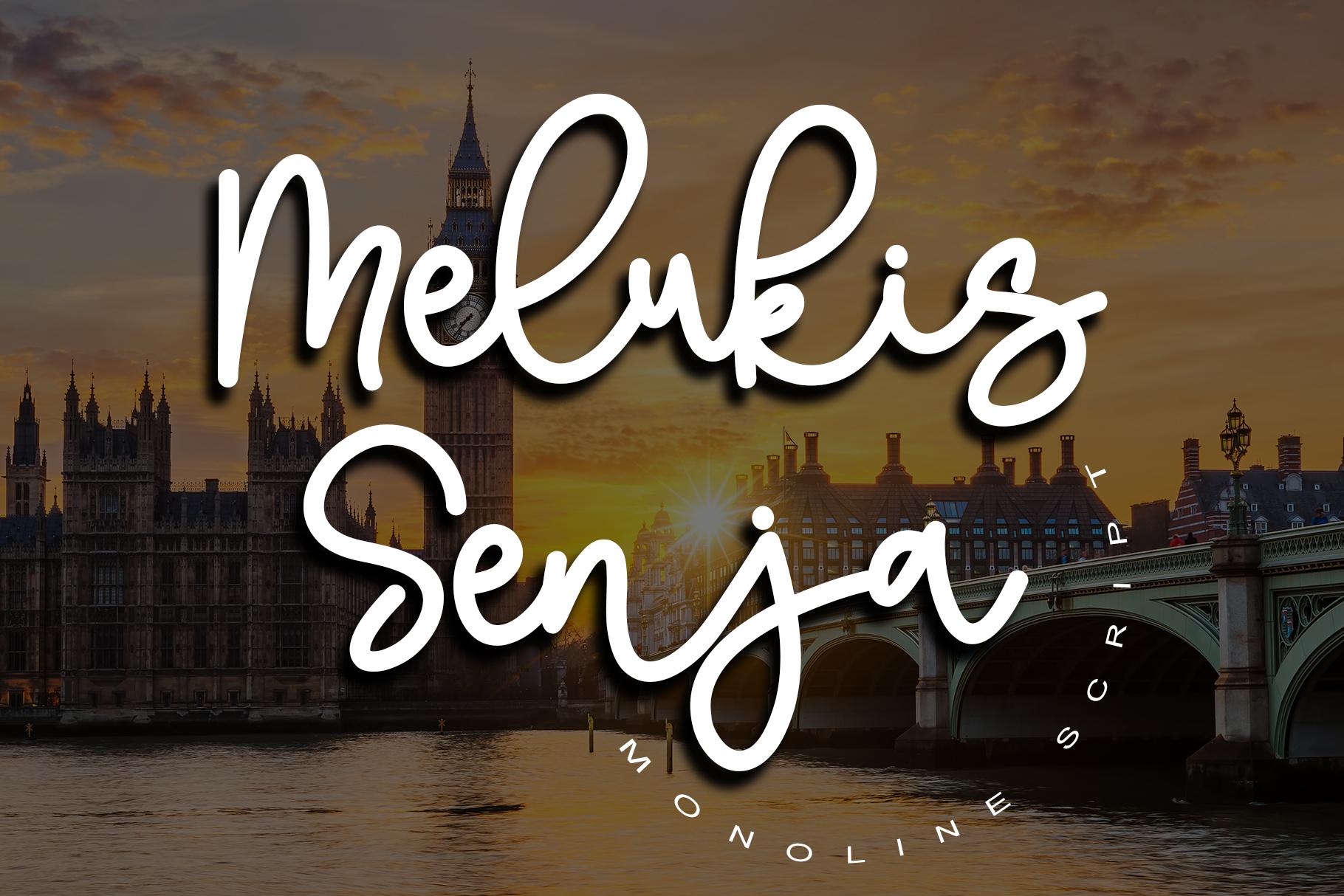
Melukis Senja Font Description
Melukis Senja is a simple script font. Melukis Senja is perfect for branding projects, logos, wedding designs, social media posts, advertisements, product packaging, product designs, photography, watermarks, invitations, stationery and any projects that need handwriting style. This font is PUA encoded which means you can access all of the amazing glyphs and swashes with ease!